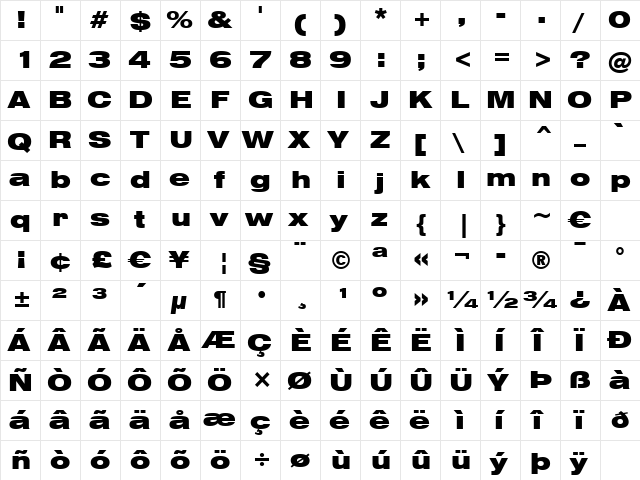
Swis721 BlkEx BT Black
Design Context for Swis721 BlkEx BT Typeface
Swis721 BlkEx BT is a composed and adaptable typeface that performs quietly and consistently across a wide range of design contexts.